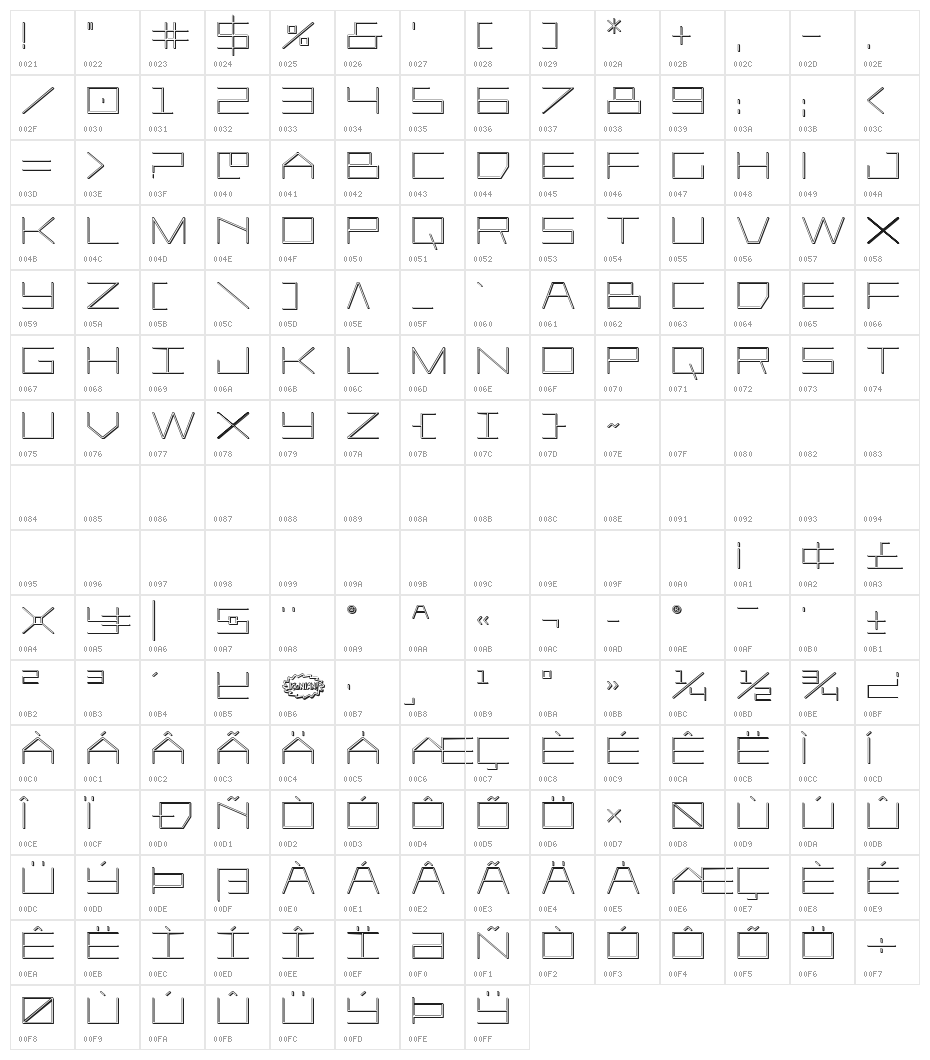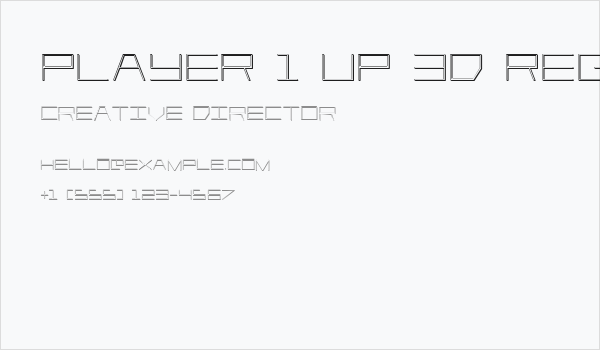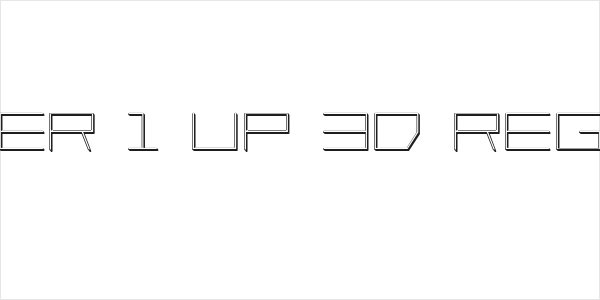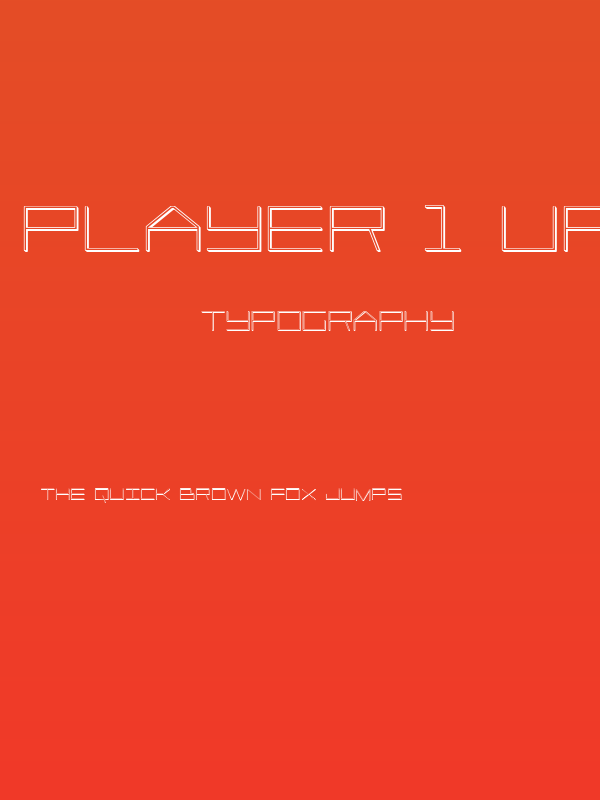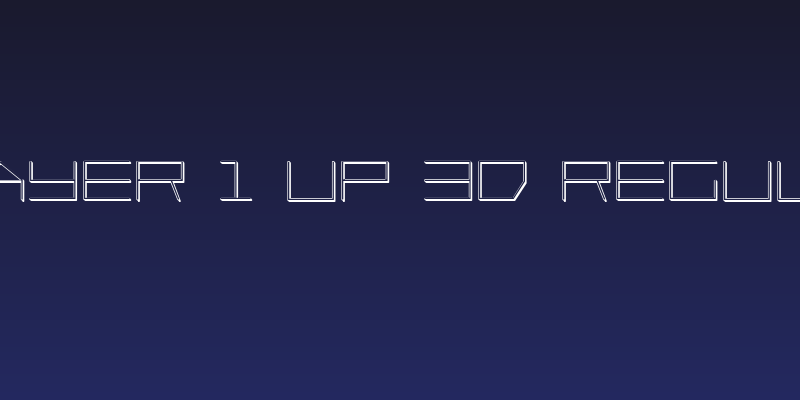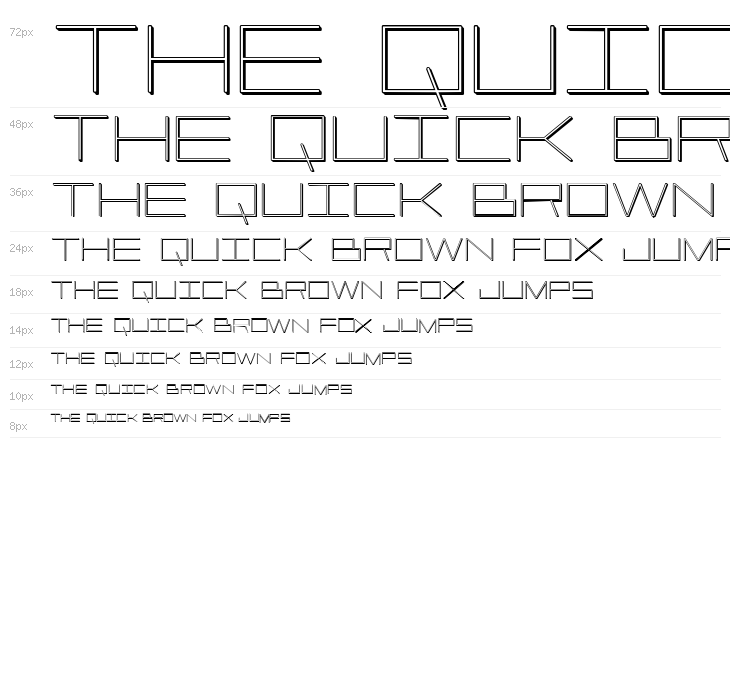
Player 1 Up 3D Regular Font
Player 1 Up 3D Regular Description
This font features a futuristic and geometric design, characterized by its three-dimensional appearance. The letters are constructed with clean, angular lines and a hollow interior, giving them a unique, tech-inspired look. The uppercase and lowercase letters maintain a consistent style, with sharp edges and a sense of depth. The numerals and special characters follow the same design principles, ensuring a cohesive appearance across all glyphs. This font's distinct style makes it ideal for projects that require a modern and innovative aesthetic.
Proposed ProjectsIdeal for video game titles, tech branding, sci-fi posters, and digital media.